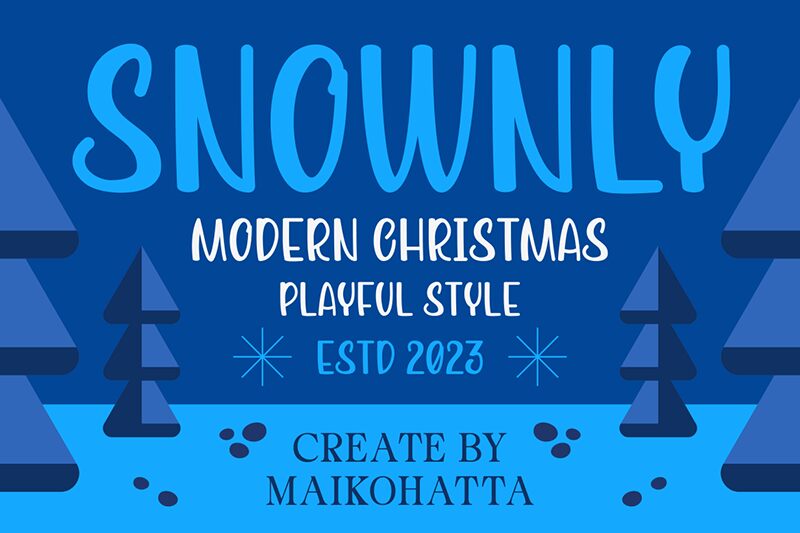
SNOWNLY
Snownly font by Gilang Ternadho is a display condensed collection with casual and contemporary vibe. The sans-serif style incorporates slanted terminals and sharp angled edges for each character. Friendly and inviting to the eyes, it combines upper and lowercase letters that are similar in height for balanced sentences, words, and paragraphs.